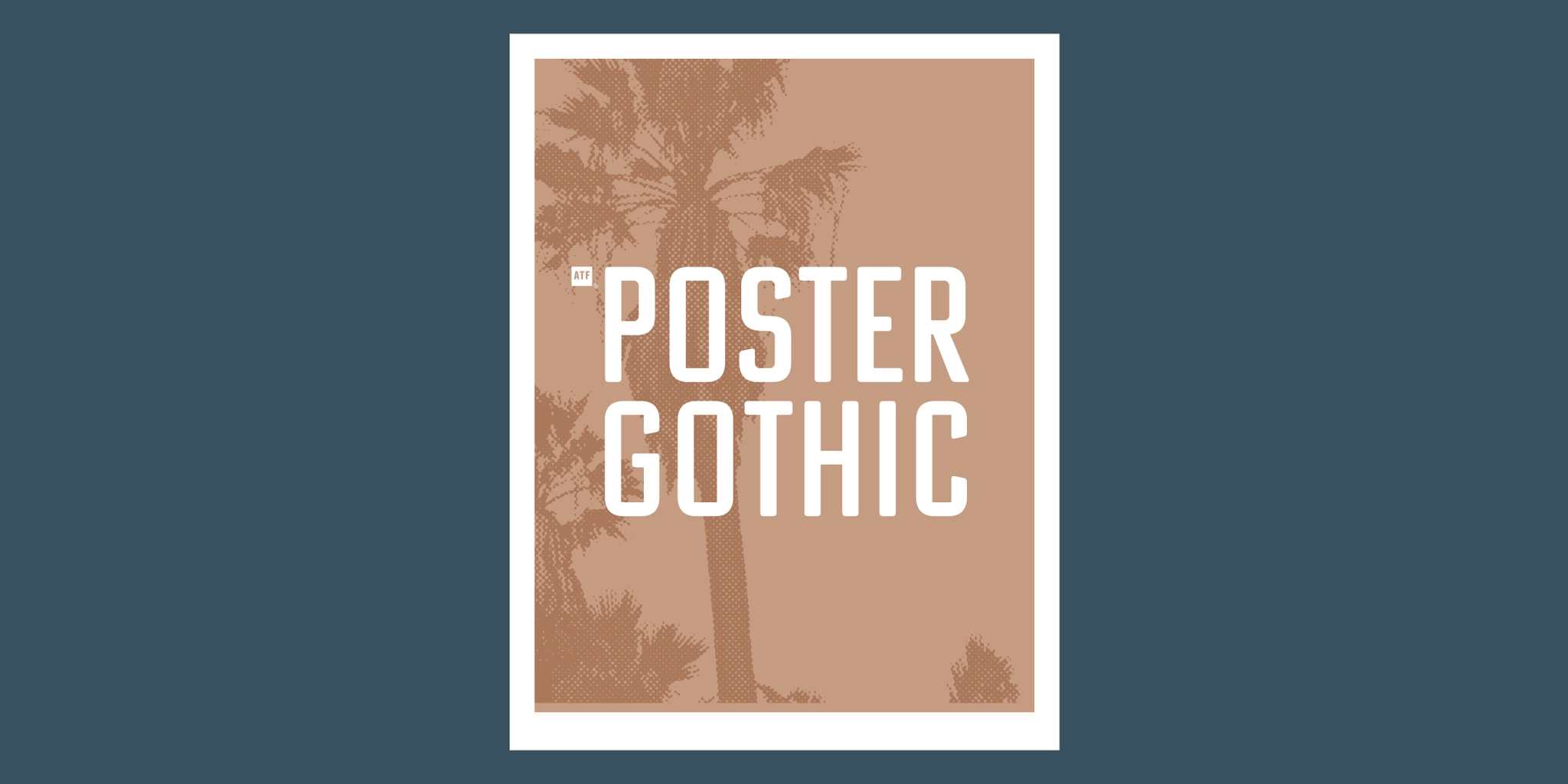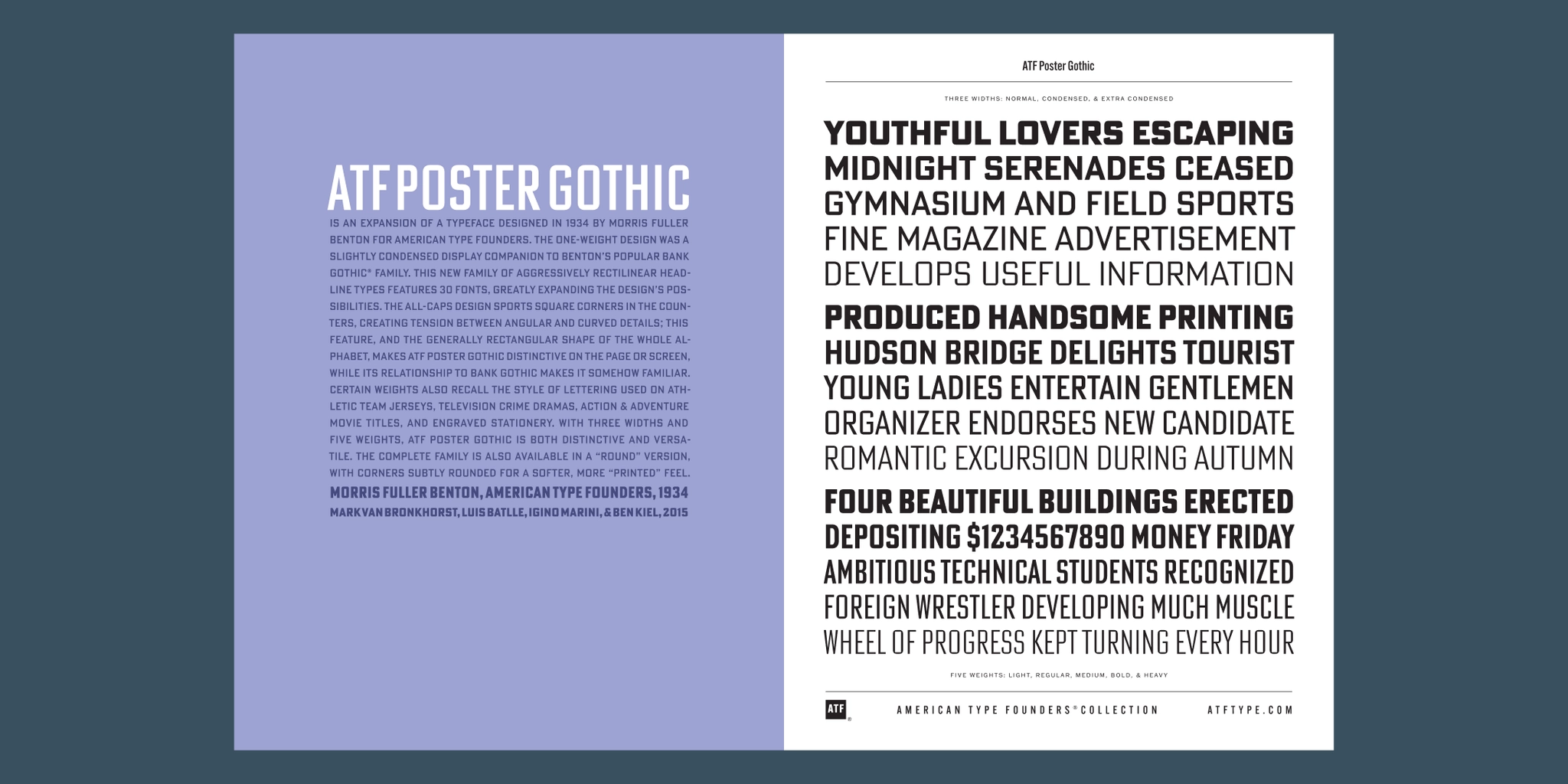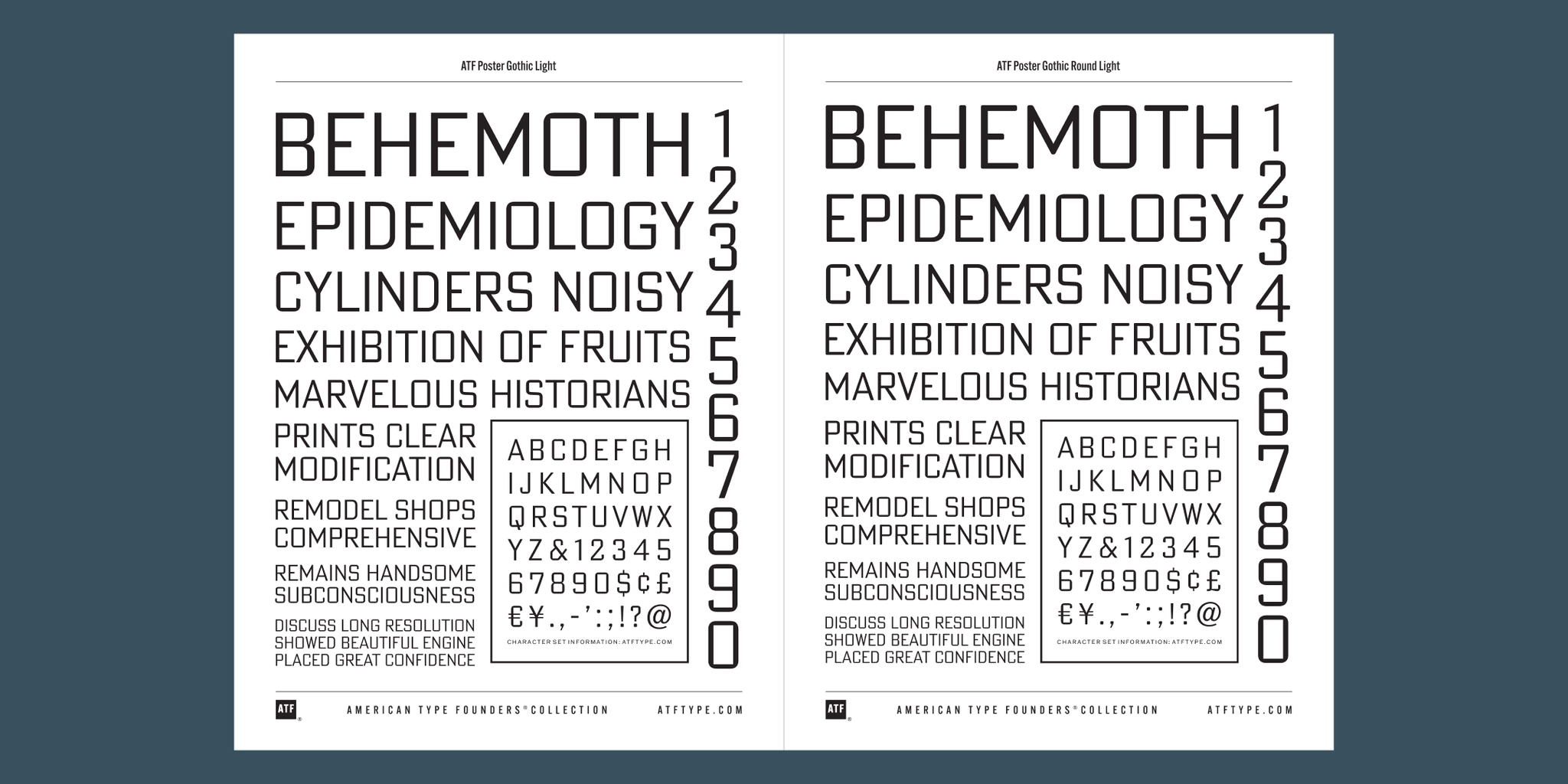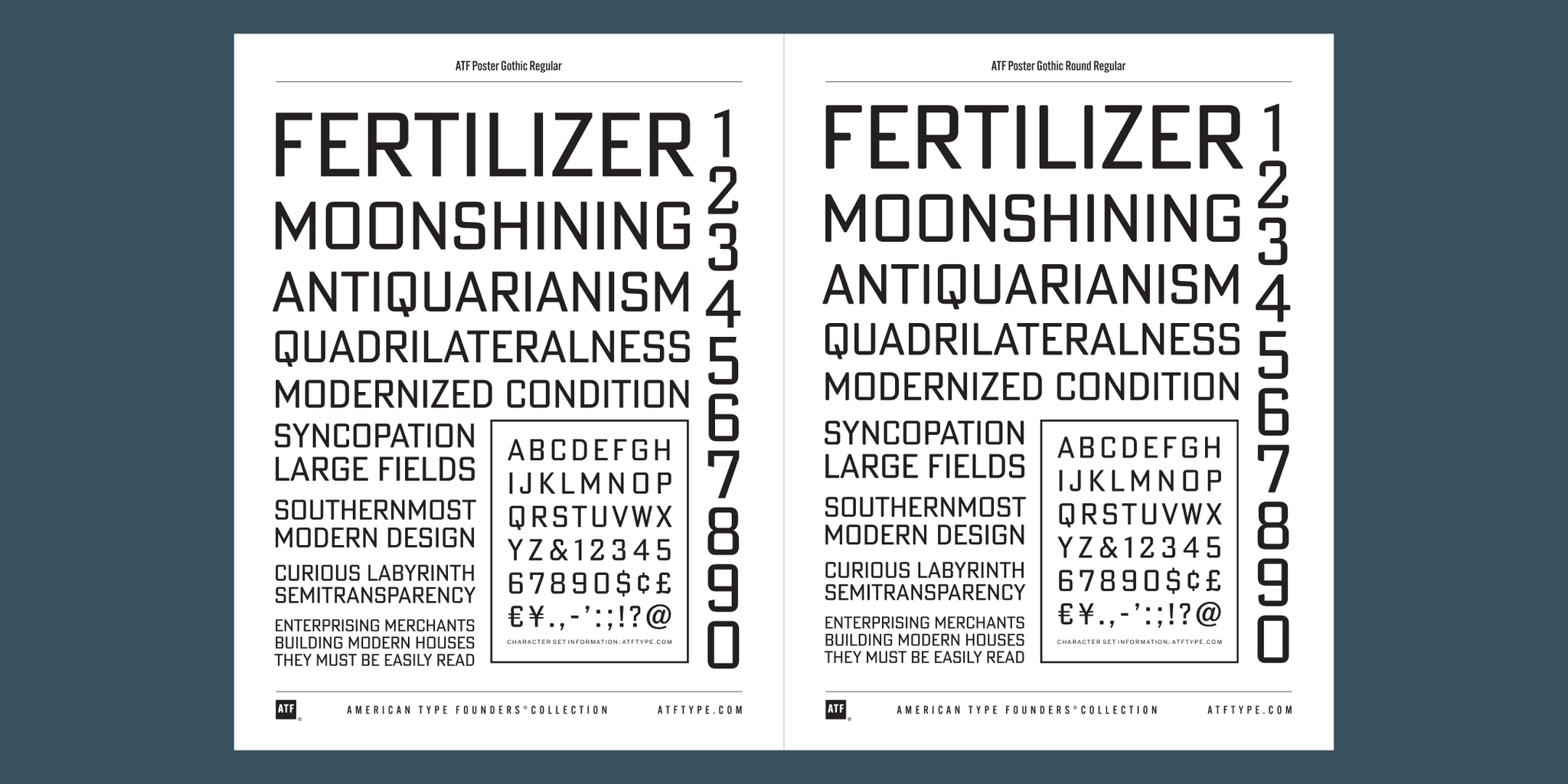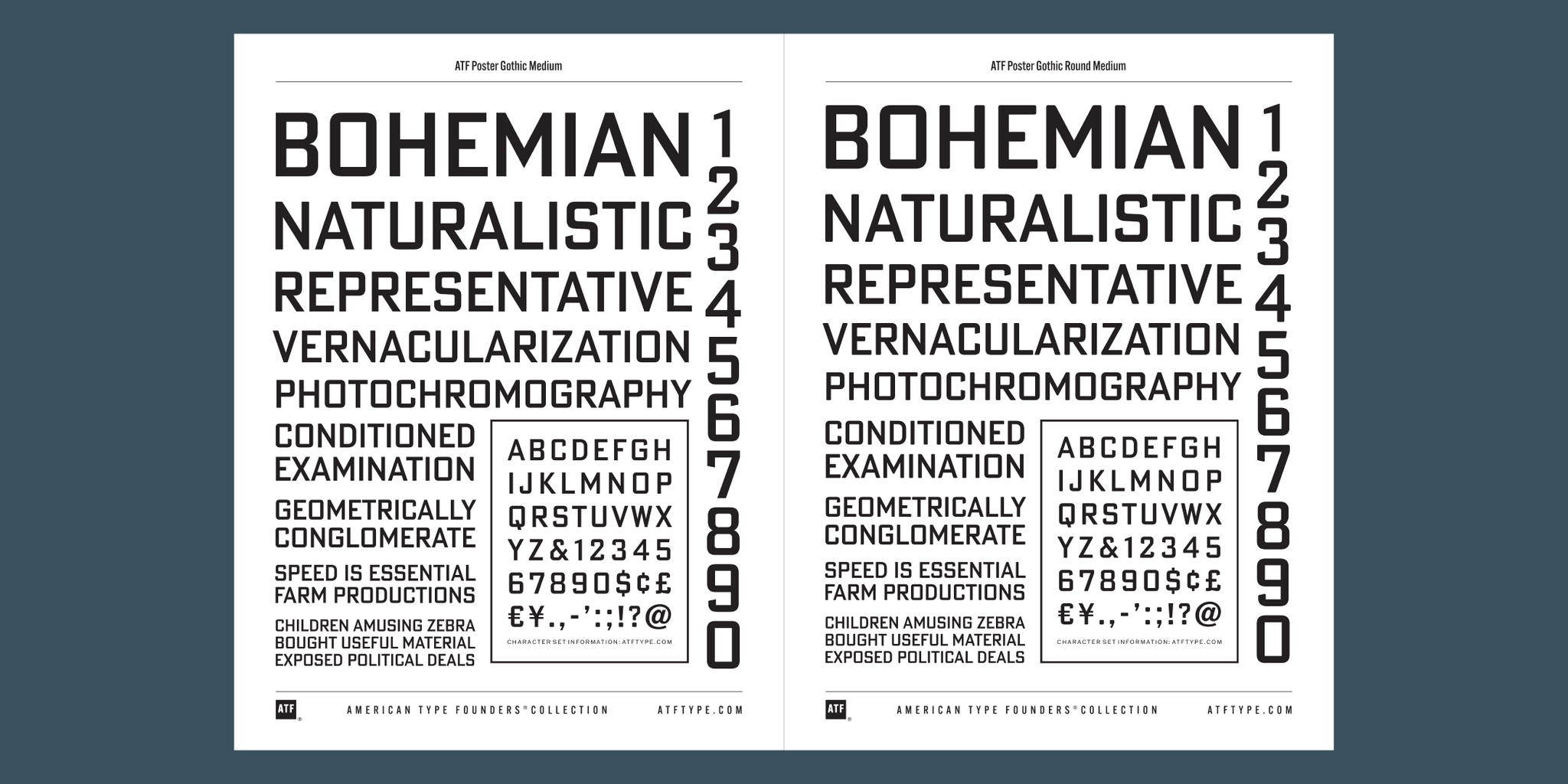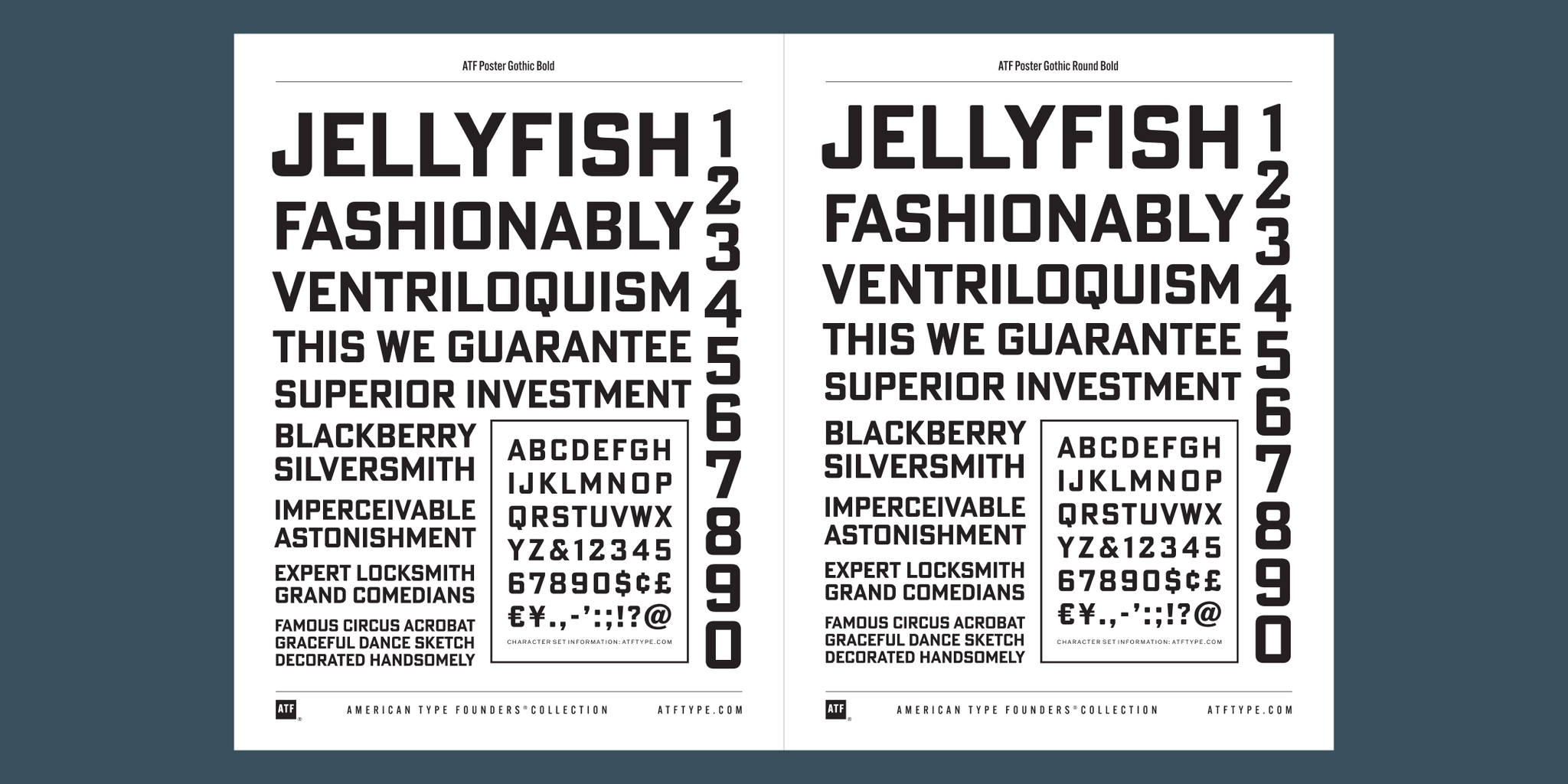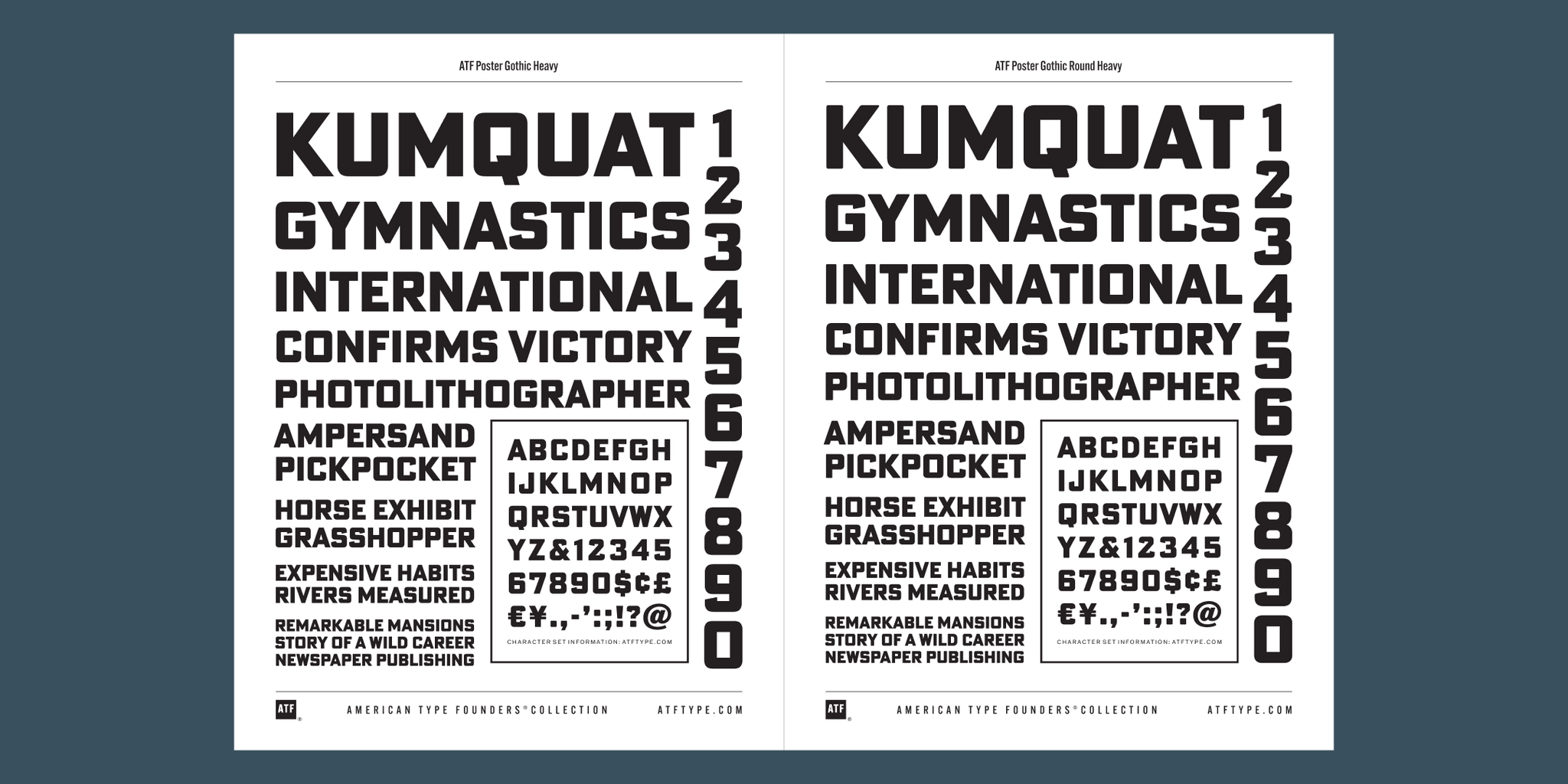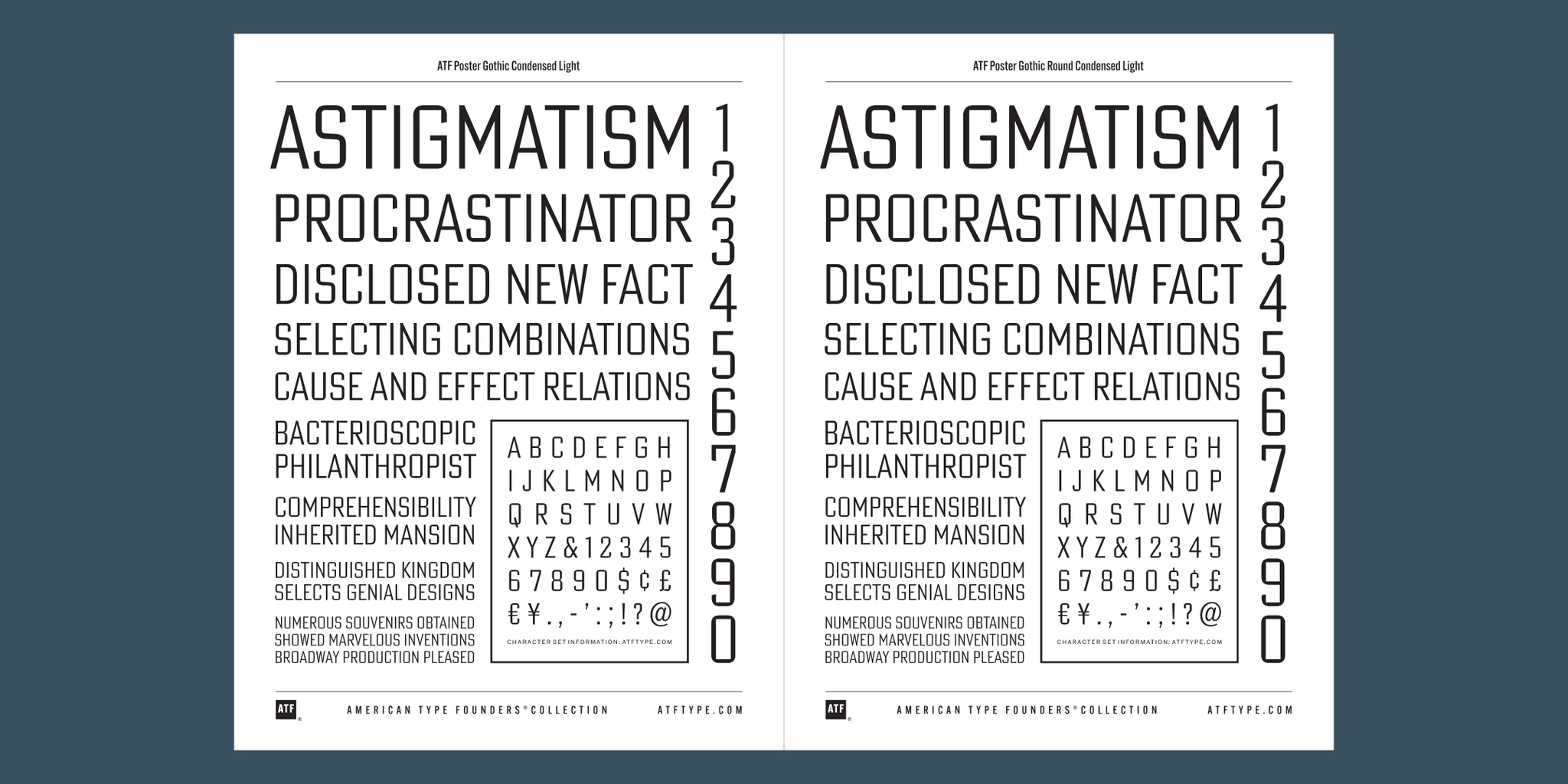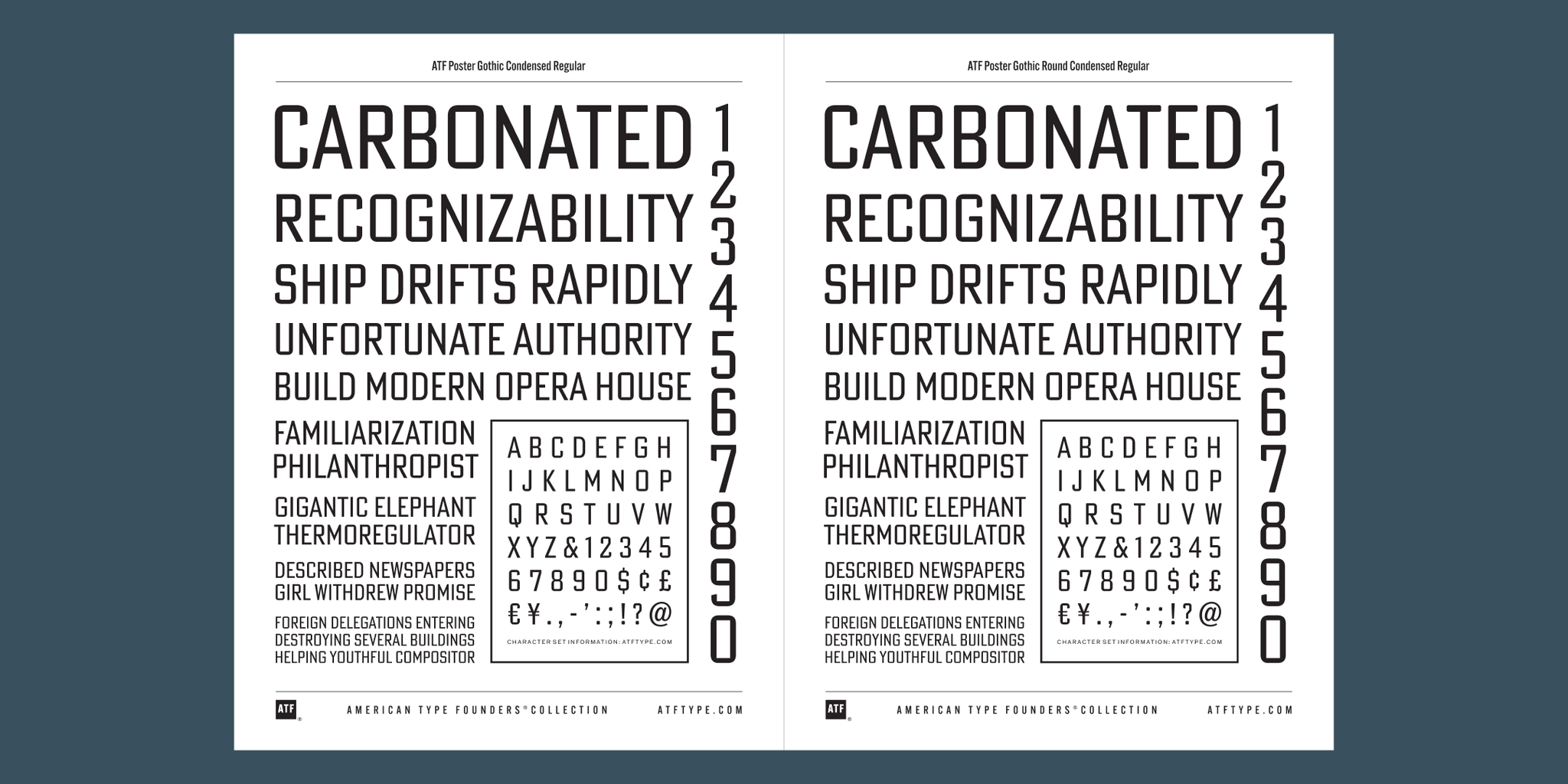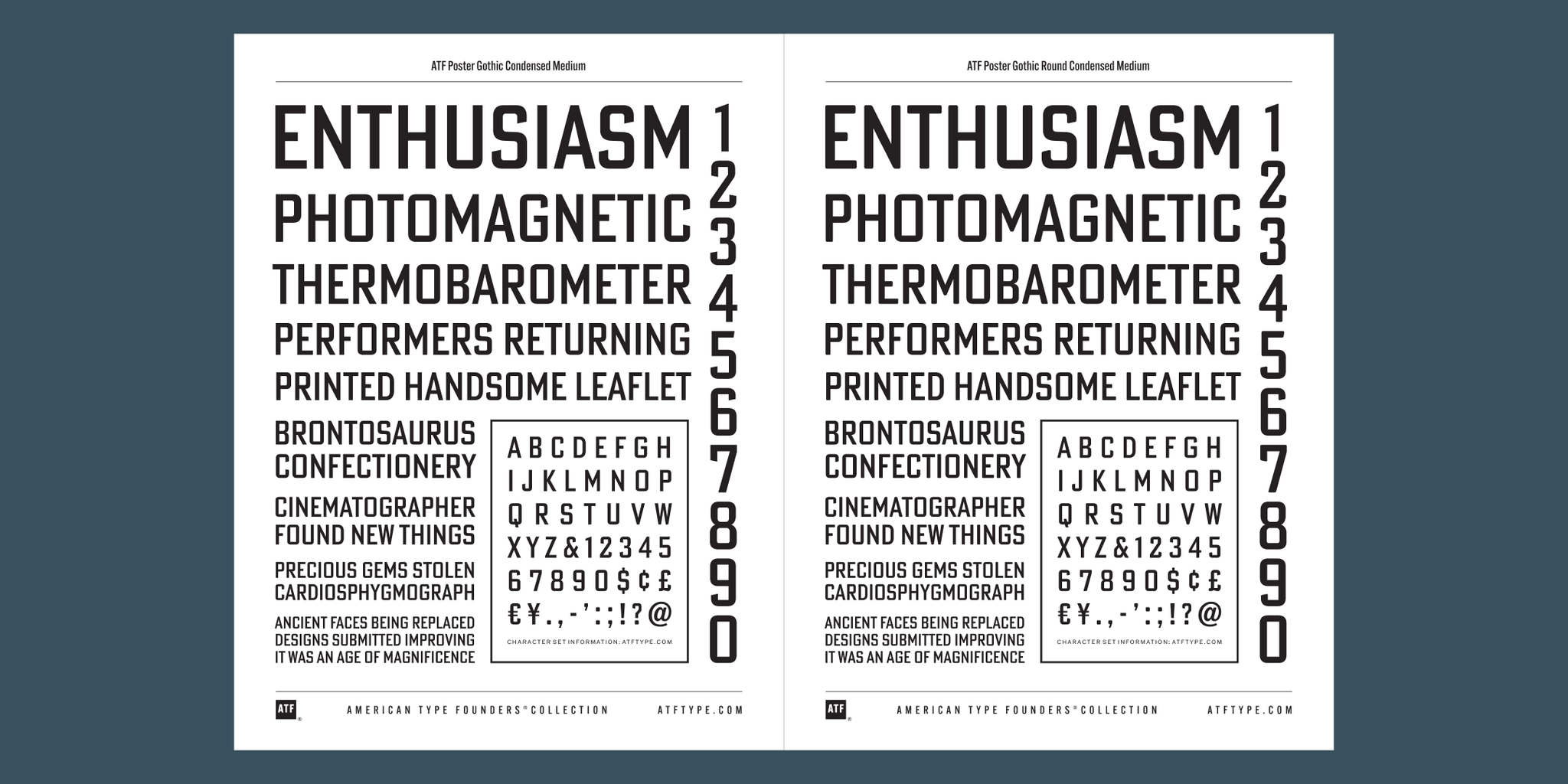
Poster Gothic Font Family
Designed by Morris Fuller Benton, Mark Van Bronkhorst, Luis Batlle, Igino Marini, and Ben Kiel.
1934 and 2015.
The American Type Founders collection was developed by Mark van Bronkhorst.
Poster Gothic is a vintage all-caps rectilinear sans serif font family from the early 20th century. Made for robust headlines, film titles, and book covers.
ATF Poster Gothic is an expansion of a typeface designed in 1934 by Morris Fuller Benton for American Type Founders. The one-weight design was a slightly condensed display companion to Benton’s popular Bank Gothic® family. This new family of aggressively rectilinear headline types features 30 fonts, greatly expanding the design’s possibilities. The all-caps design sports square corners in the counters, creating tension between angular and curved details; this feature, and the generally rectangular shape of the whole alphabet, makes ATF Poster Gothic distinctive on the page or screen, while its relationship to Bank Gothic makes it somehow familiar.
Certain weights also recall the style of lettering used on athletic team jerseys, television crime dramas, action & adventure movie titles, and engraved stationery. With three widths and five weights, ATF Poster Gothic is both distinctive and versatile. The complete family is also available in a “Round” version, with corners subtly rounded for a softer, more “printed” feel.